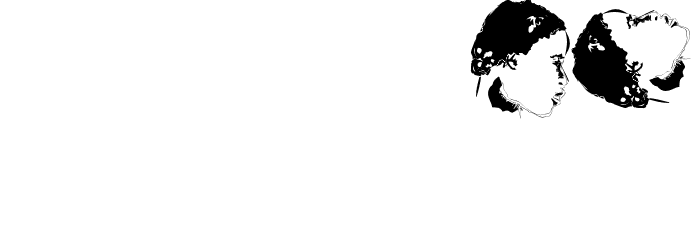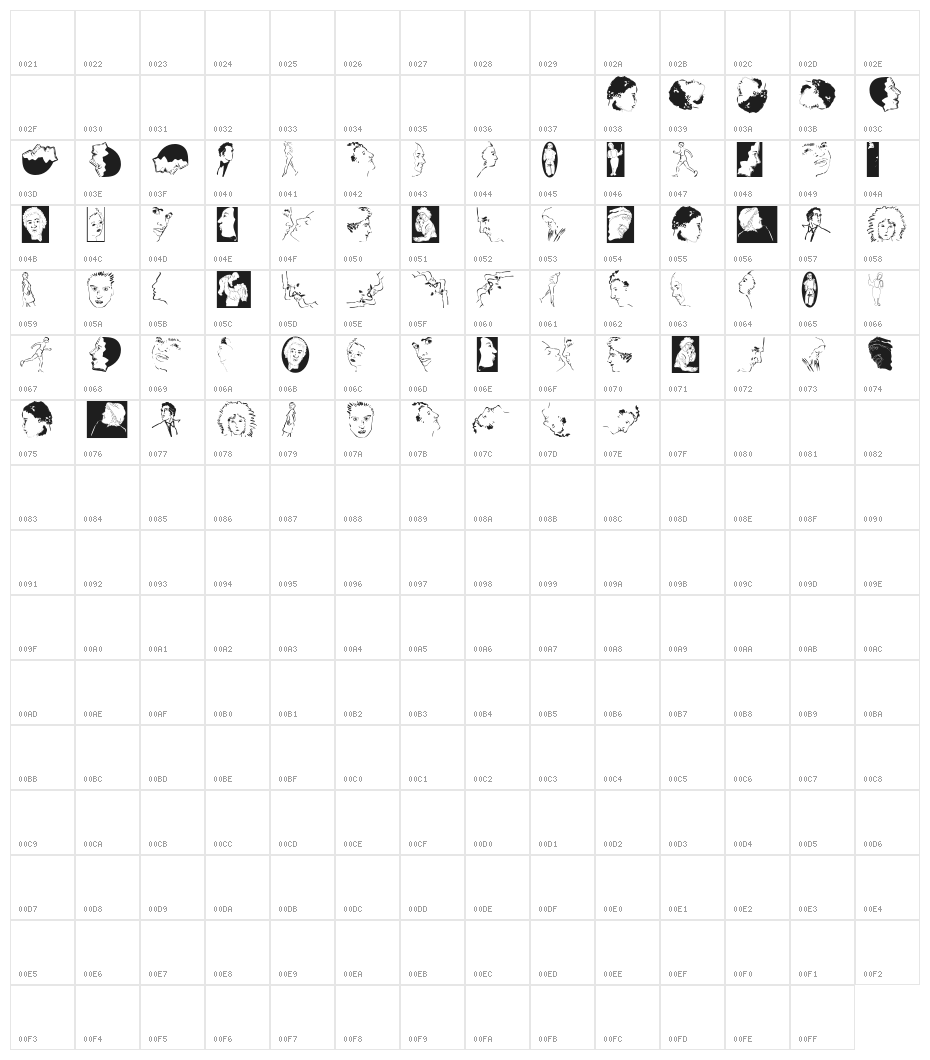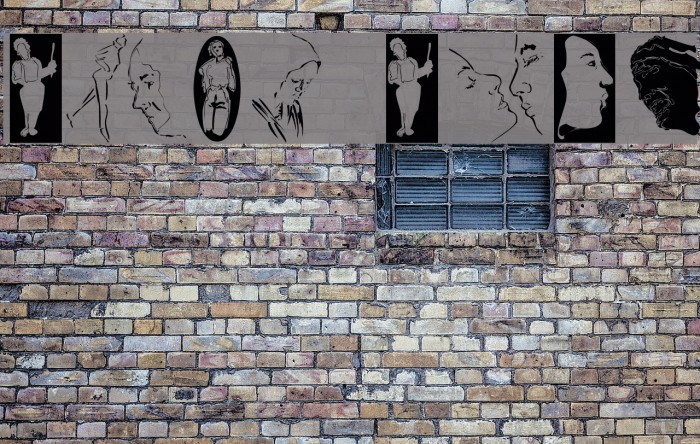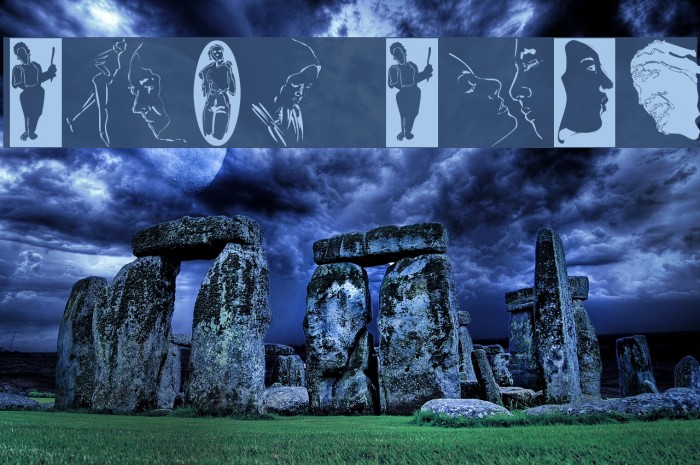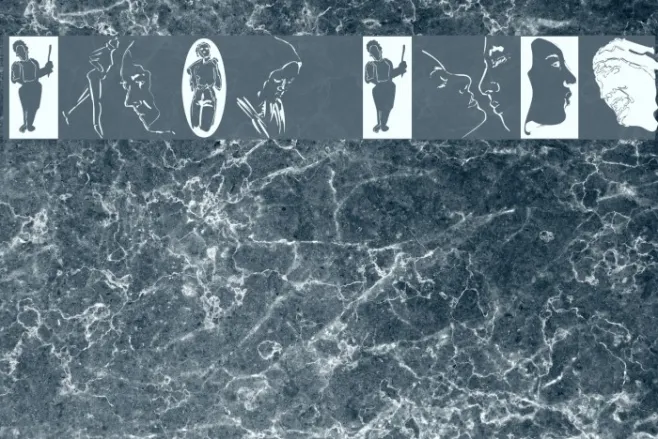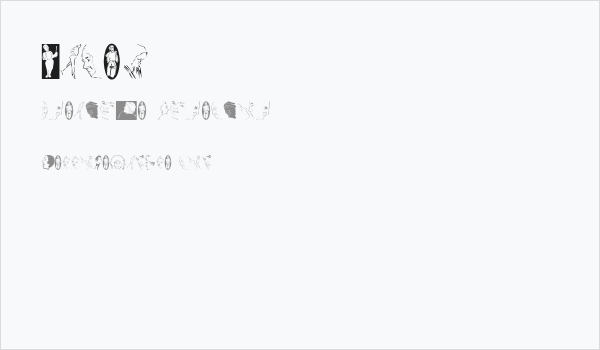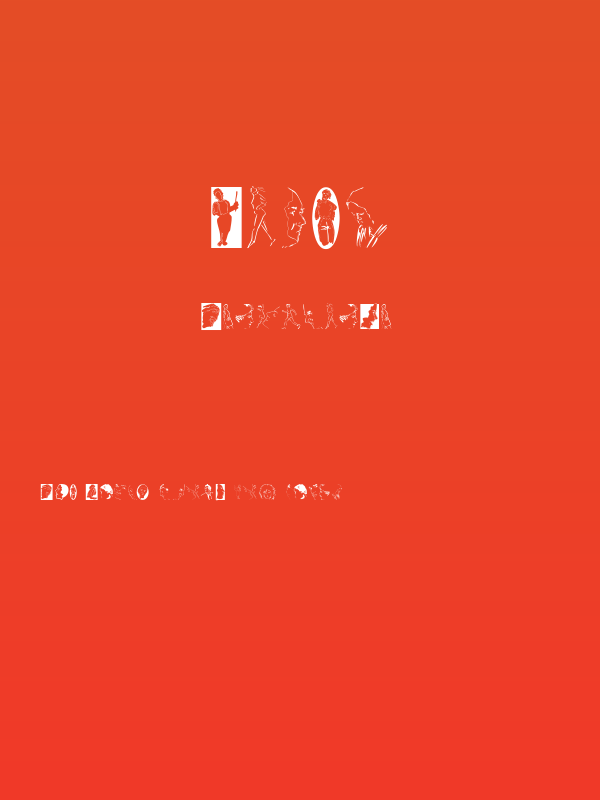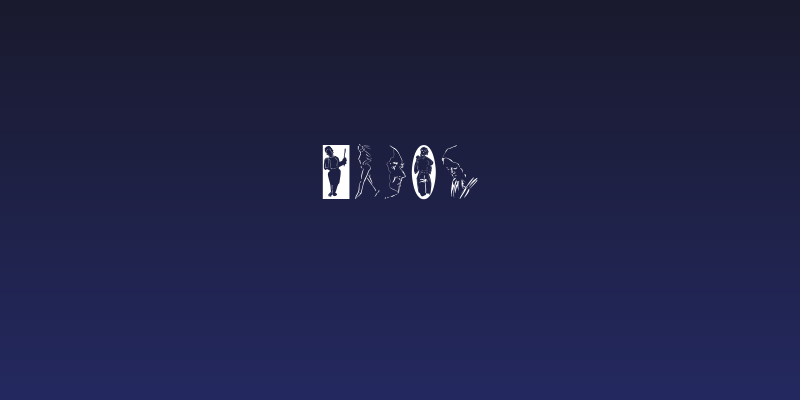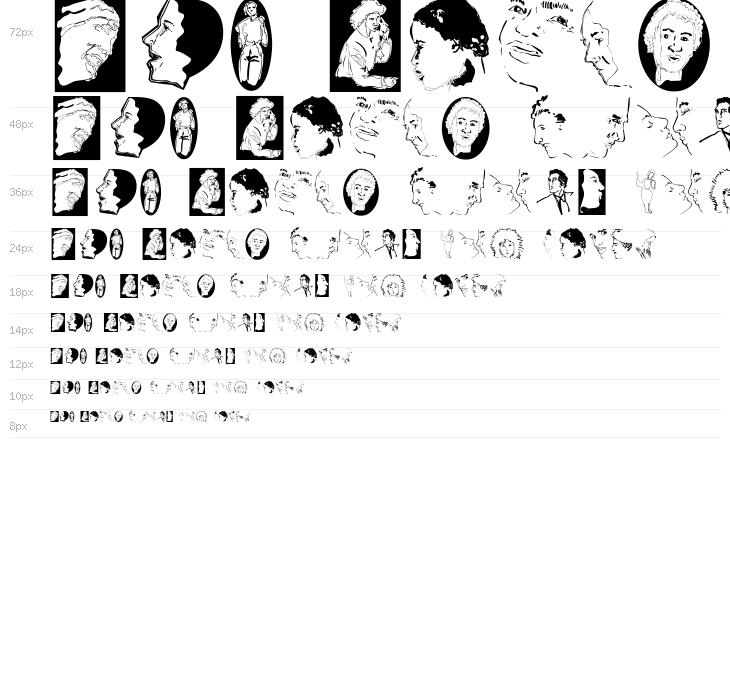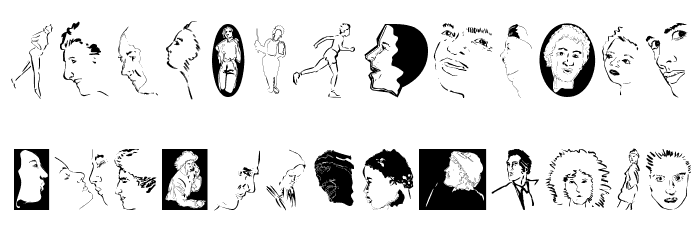
Faces Font
Faces Description
A decorative display typeface composed of hand-drawn, sketch-like illustrations of human faces and figures, each character represented by a unique portrait or profile, with high visual contrast and expressive line work.
Overall StyleDecorative, Artistic, Hand-drawn
Use CaseLogos, Headlines, Artistic titles, Thematic graphics
Proposed ProjectsPosters, album covers, editorial illustrations, art projects, branding for creative industries.